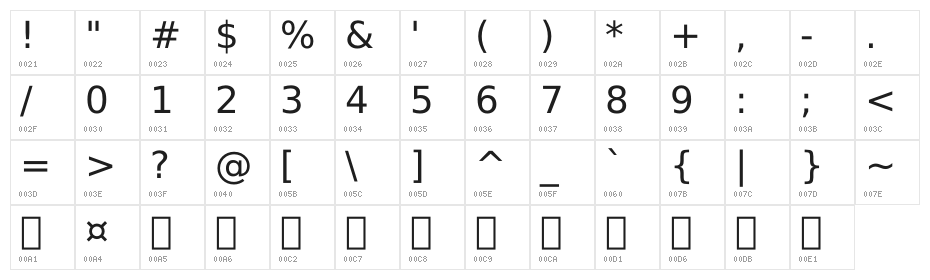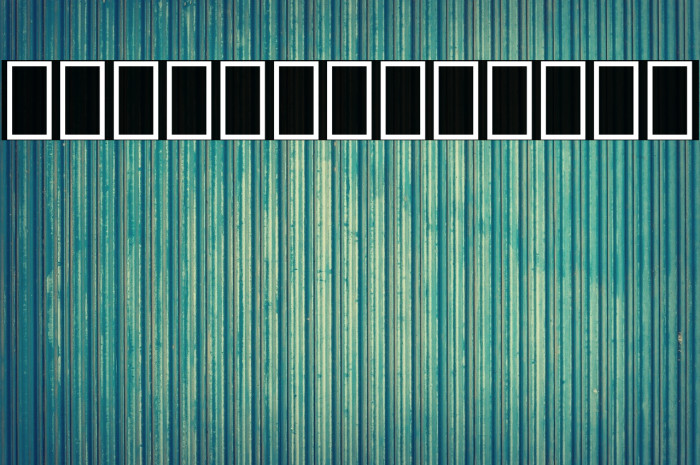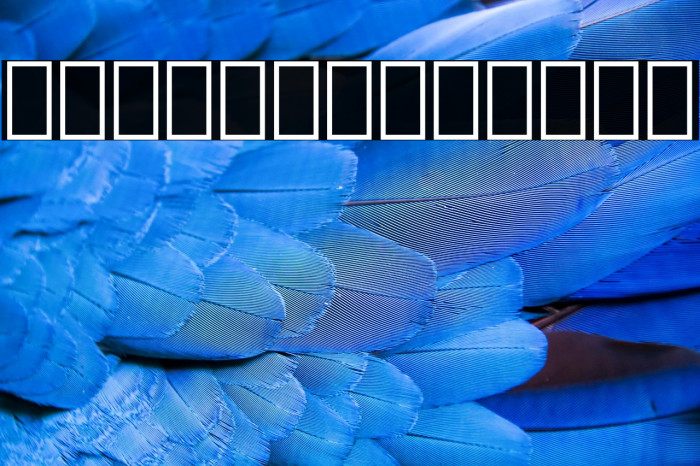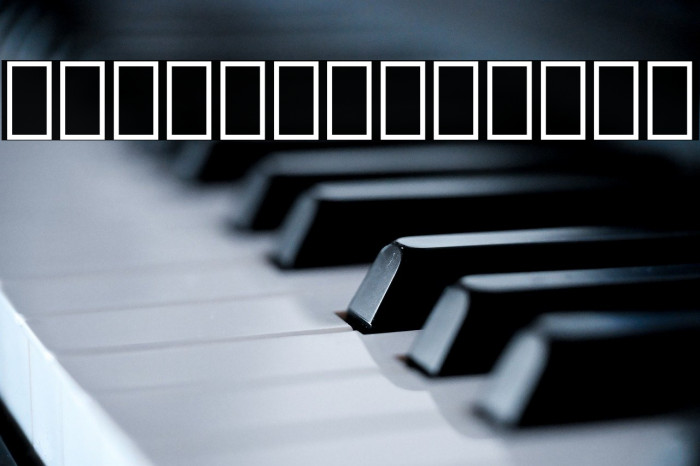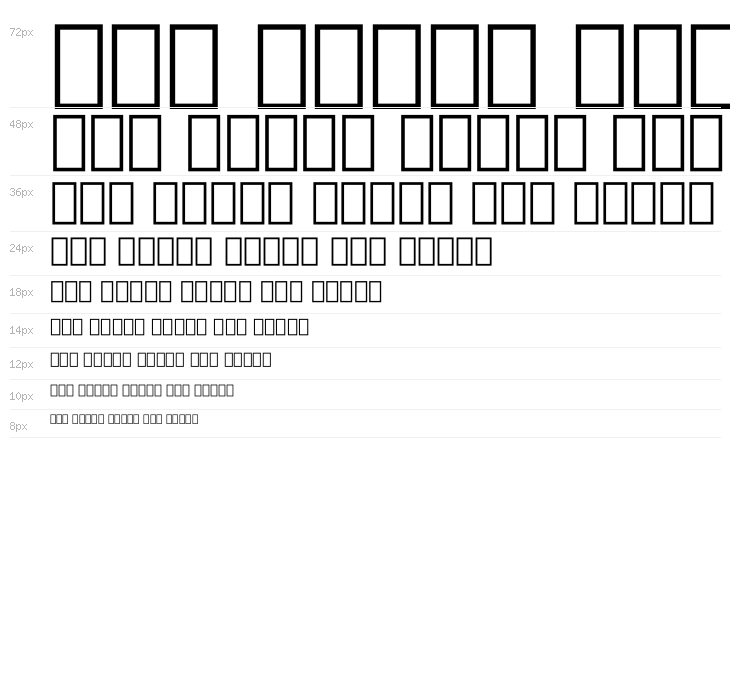
Iranian Sans Font
Iranian Sans Description
This font is a clean and modern sans-serif typeface with a straightforward design. It features uniform stroke widths, contributing to a balanced and harmonious appearance. The characters are well-proportioned, with a slightly condensed structure that enhances readability. The numerals are clear and distinct, making them suitable for both digital and print media. Special characters are designed with simplicity, maintaining the overall minimalist aesthetic. This font is versatile, suitable for a wide range of applications from body text to headlines.
| Proposed Projects | Ideal for web design, corporate branding, user interfaces, and editorial content. |